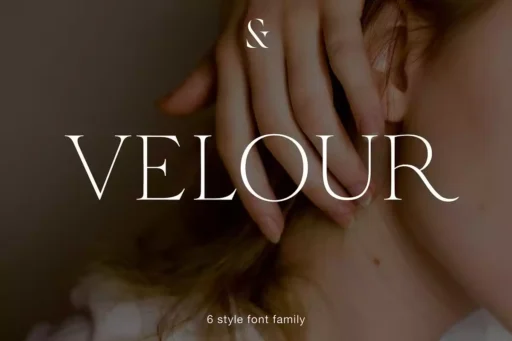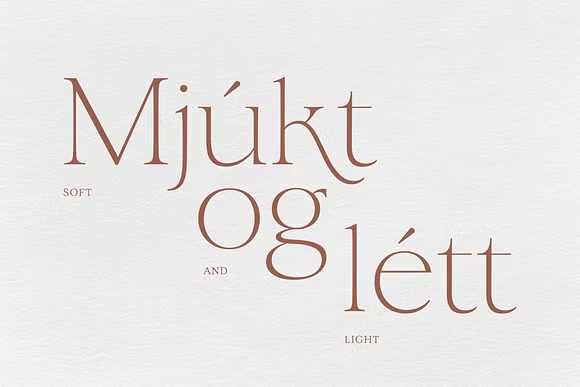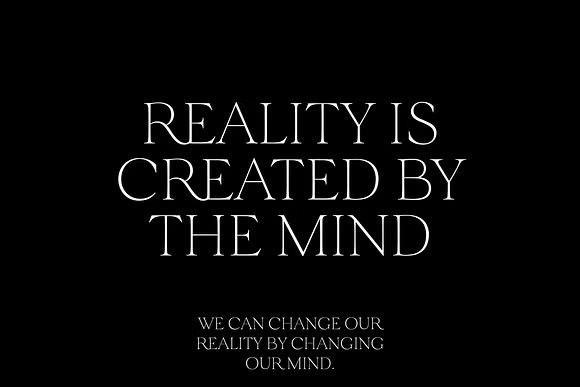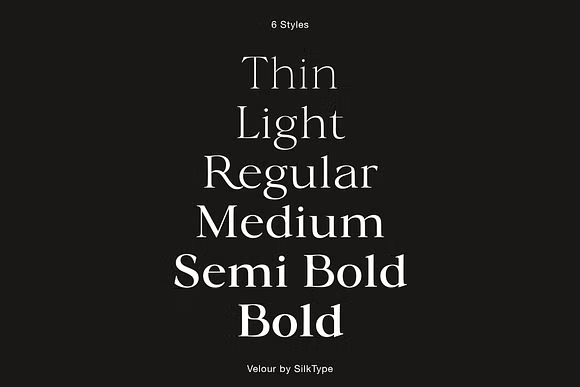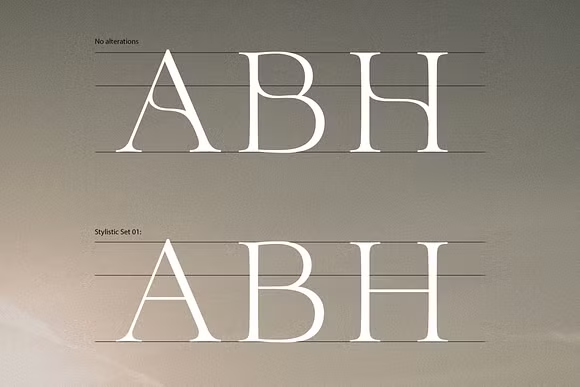
Velour Font
Velour is an elegant and modern serif font by Silktype. The design elements of Velour are well articulated to give the impression of luxury and style. Runalto font is suitable for various design projects, including magazines, social media posts, branding projects, logos, and so on.
It has thin serifs with brackets at the ends and looks very elegant and traditional. Its most notable features include the arched elements on the ‘A’ and ‘H’ letters that give it a unique look, as well as the long, elegant feet of the ‘K’ and ‘R’. Using an alternative ‘k’ that inserts automatically maintains the consistency and smoothness of the text. These features, on their own, make it look and feel very romantic and stylish, and they can definitely improve the look of any project.
Velour has a nice set of both typical and classic numerals which will fit any project you may have. The typeface also has two styles of ampersands and has simpler letter structures, thus making it versatile and artistic in use.
The Velour font is available in six different weights, namely Thin, Extralight, Light, Regular, Semi-bold, and Bold, thus making it possible to get the right weight for the design project at hand. This range offers an added level of adaptability to the typeface and allows it to work well in a variety of situations and settings, from the more delicate, lighter weights to the stronger, bolder ones. On the same note, Velour offers support for Western, Central, and South Eastern European languages to enhance the application’s compatibility with numerous international projects.
Velour is a very classy font for high-end designs. For branding, editorial design or advertising, Velour’s properties and multiple weights and styles will bring elegance and create rich and soft visuals that will convey a luxurious message.
Velour Font is a Serif Fonts font that brings a professional and versatile look to your projects. Velour is an elegant and modern serif font by Silktype.